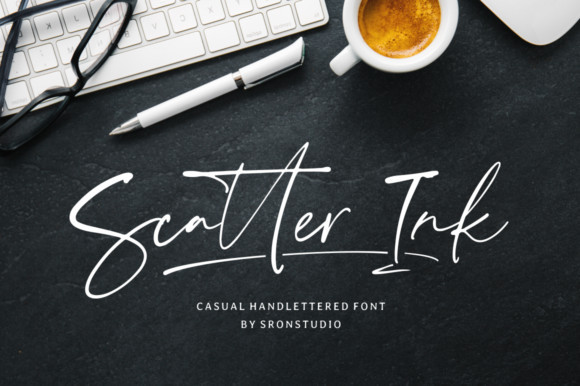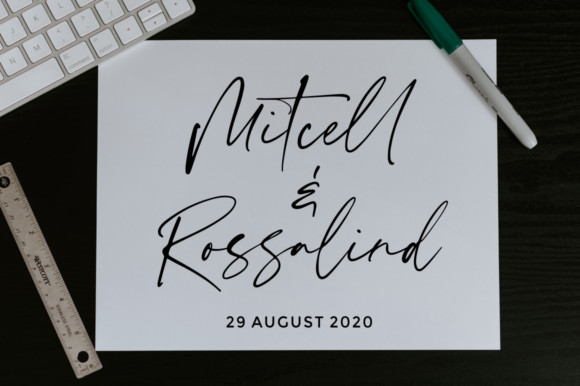
Scatter Ink Font
Scatter Ink is a lovely and timeless handwritten font. It is the best choice for creating eye catching logos, branding and quotes. Every letter has a unique and beautiful touch, which will make your design come alive!